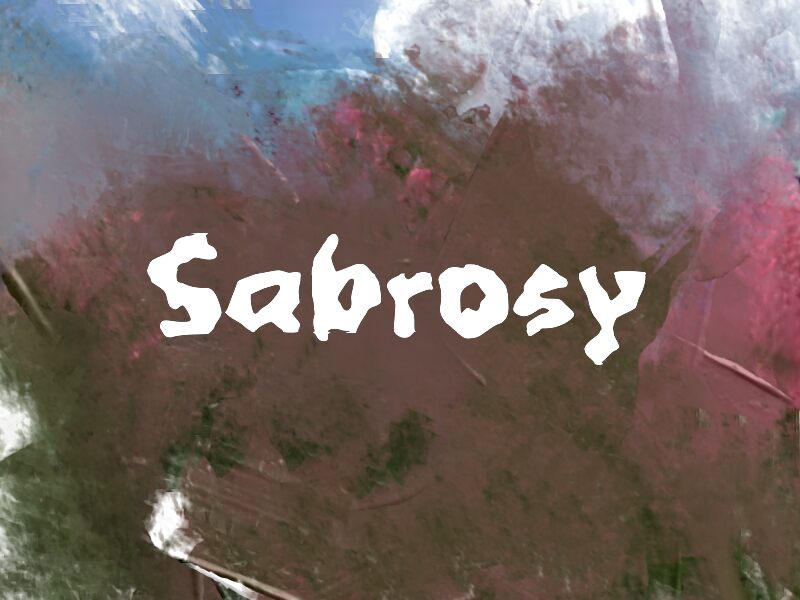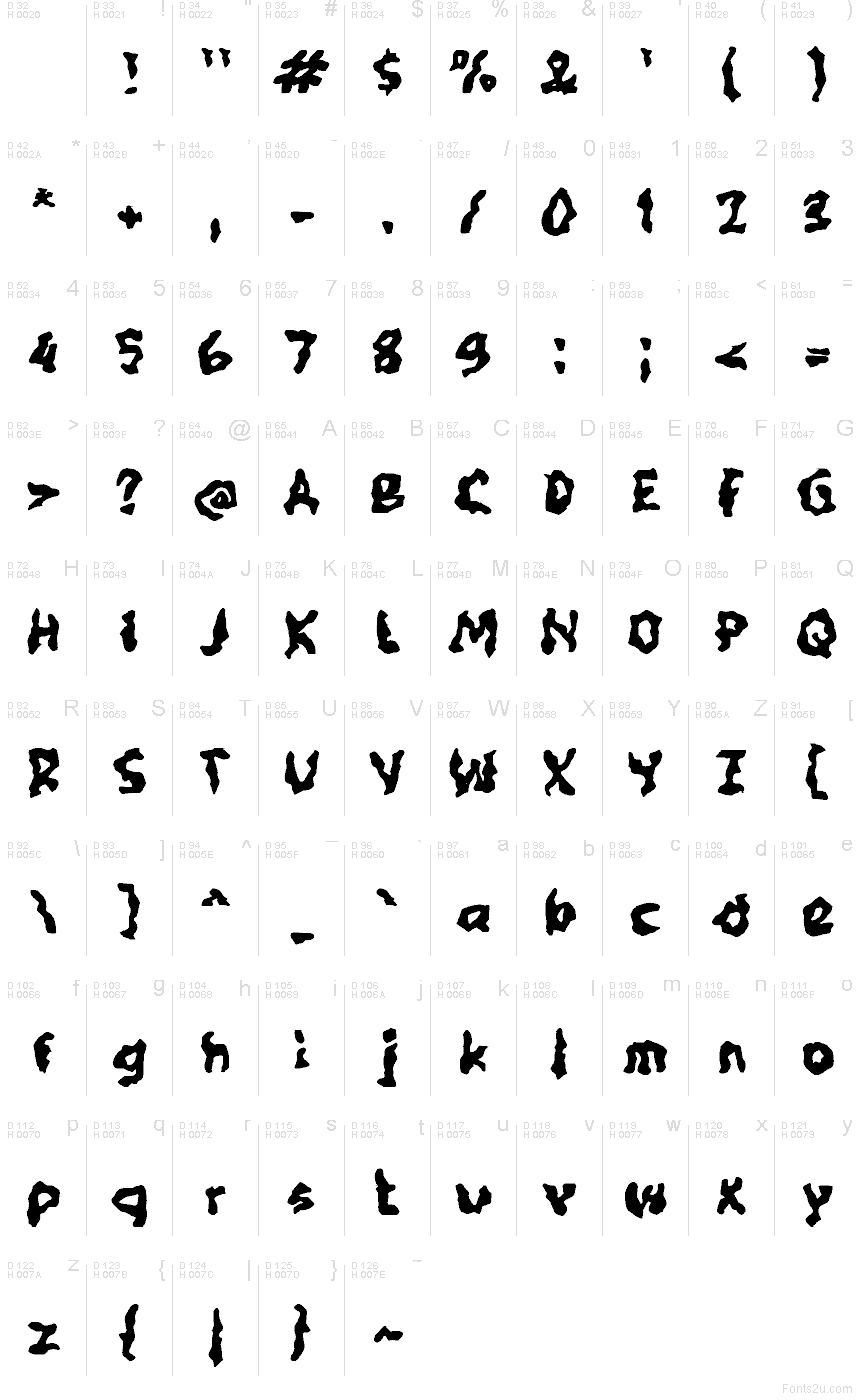
Sabrosy by Wep is a free distorted display font with a rough, melted cut-paper feel. The letters look heavy and irregular, with pinched openings and lumpy edges that make the wordshape feel hand-shaped rather than engineered.
It fits posters, album art, streetwear graphics, zine covers, packaging, and short social headers where a raw silhouette does the work fast. As a free font, Sabrosy suits title cards, badge-style marks, and brief branding moments that need something blunt, warped, and a little unruly without turning into novelty.
Sabrosy